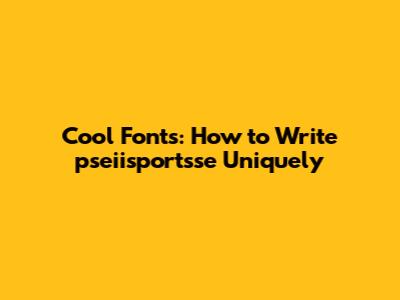
- Contrast is Key: Pair a serif font with a sans-serif font to create visual interest.
- Hierarchy Matters: Use a bolder font for headlines and a simpler font for body text.
- Limit the Number of Fonts: Stick to two or three fonts max to keep things clean and cohesive.
- Serif: In Times New Roman, "pseiisportsse" looks classic and professional.
- Sans-Serif: In Helvetica, "pseiisportsse" looks modern and clean.
- Script: In Brush Script MT, "pseiisportsse" has a playful, handwritten vibe.
- Display: In a bold, futuristic font like Bebas Neue, "pseiisportsse" looks attention-grabbing and dynamic.
Hey guys! Ever wondered how to make your text stand out? Let's dive into how you can write "pseiisportsse" using different fonts and styles to give it that extra zing. Whether you're designing a logo, creating social media content, or just want to add some flair to your messages, understanding font variations can make a huge difference. So, buckle up and get ready to explore the awesome world of fonts!
Why Bother with Different Fonts?
Fonts are more than just how letters look; they convey emotion, personality, and tone. Using different fonts can drastically change how your message is perceived. Think about it: a playful, rounded font might be perfect for a children's book, while a sharp, elegant serif font could be ideal for a high-end brand. When you're aiming for something specific, like making "pseiisportsse" look professional or fun, the right font is your best friend. For instance, if "pseiisportsse" is part of a gaming team's name, you might want a bold, futuristic font to reflect that energy. Or, if it's for a classy esports event, a sleek, modern sans-serif font might be the way to go. Understanding the impact of fonts allows you to strategically choose the one that best represents your message and captures the attention of your audience. Different fonts also cater to different cultural aesthetics and preferences. A font that resonates well with a Western audience may not have the same impact in an Eastern culture, and vice versa. By considering these nuances, you can ensure that your message is not only visually appealing but also culturally relevant and inclusive. Ultimately, experimenting with various fonts enables you to create a unique and memorable brand identity. Consistency in font usage across all platforms reinforces brand recognition and helps to establish a cohesive image. So, investing time in selecting the perfect fonts is an investment in your brand's success and longevity.
Exploring Font Categories
To really nail the "pseiisportsse" transformation, let's look at some key font categories. Each category has its own vibe and use cases.
Serif Fonts
Serif fonts are those classic fonts with little feet or strokes at the end of each letter. Think Times New Roman or Georgia. They often convey a sense of tradition, authority, and professionalism. For "pseiisportsse," a serif font might work well if you want to give it a formal, established feel. These fonts are generally considered more readable in print due to their distinctive serifs that guide the eye along the text, making them ideal for books, newspapers, and magazines. However, when it comes to digital media, serif fonts can sometimes appear cluttered on screens with lower resolutions, so careful consideration is necessary when using them online. Different types of serif fonts, such as Old Style, Transitional, and Modern, each have their unique characteristics. Old Style serifs, like Garamond, have a more organic and handwritten feel, while Transitional serifs, like Baskerville, offer a balance between traditional and modern aesthetics. Modern serifs, like Didot, are characterized by their high contrast between thick and thin strokes and their sharp, vertical stress. Understanding these variations allows you to choose a serif font that aligns perfectly with the intended tone and style of your message. In addition to their aesthetic qualities, serif fonts can also influence the perceived credibility and trustworthiness of your content. Studies have shown that serif fonts are often associated with reliability and expertise, making them a popular choice for academic papers, legal documents, and corporate reports. By leveraging the inherent qualities of serif fonts, you can enhance the overall impact and effectiveness of your communication.
Sans-Serif Fonts
Sans-serif fonts, like Arial or Helvetica, are clean and modern. They lack the serifs, giving them a more contemporary look. These fonts are great for conveying simplicity, clarity, and a forward-thinking attitude. If you want "pseiisportsse" to look sleek and modern, a sans-serif font is the way to go. They are particularly effective for digital displays, as their clean lines and lack of embellishments make them highly legible on screens of all sizes and resolutions. Sans-serif fonts come in a wide variety of styles, each with its own unique personality. Geometric sans-serifs, like Futura, are characterized by their precise, geometric shapes and minimalist design. Humanist sans-serifs, like Gill Sans, have a more organic and approachable feel, with subtle variations in stroke weight and letterform. Grotesque sans-serifs, like Helvetica, are known for their neutral and versatile appearance, making them suitable for a wide range of applications. When choosing a sans-serif font, it's important to consider the overall context and intended message. A bold and impactful sans-serif can be used to grab attention and make a statement, while a lighter and more refined sans-serif can convey a sense of elegance and sophistication. In addition to their aesthetic appeal, sans-serif fonts also offer practical benefits in terms of readability and accessibility. Their clean and simple design makes them easier to read for people with visual impairments or learning disabilities, ensuring that your message is inclusive and accessible to a wider audience. By carefully selecting a sans-serif font that aligns with your brand identity and communication goals, you can create a consistent and impactful visual experience.
Script Fonts
Script fonts mimic handwriting. Think of cursive or calligraphy styles. These fonts can add a touch of elegance, creativity, or personalization. If "pseiisportsse" needs a fancy or artistic vibe, a script font could be perfect. However, be careful – script fonts can sometimes be harder to read, so use them sparingly and for shorter words or phrases. The key to using script fonts effectively is to ensure that they complement the overall design and enhance the message, rather than detract from it. When selecting a script font, consider the level of formality and the intended audience. A formal script font, like Edwardian Script, is suitable for wedding invitations and elegant branding, while a more casual script font, like Brush Script, is better suited for informal designs and creative projects. It's also important to pay attention to the spacing and kerning of script fonts, as tight spacing can make them difficult to read. Adjusting the letter spacing can improve legibility and create a more balanced and harmonious appearance. Script fonts can also be combined with other font styles to create a more dynamic and visually appealing design. Pairing a script font with a simple sans-serif font can create a striking contrast and add visual interest to your message. By experimenting with different combinations and styles, you can create a unique and memorable design that effectively communicates your brand's personality and values.
Display Fonts
Display fonts are the wildcards of the font world. They're designed to be eye-catching and unique, often used for headlines, logos, or anything that needs to grab attention. These fonts come in all shapes and sizes, from bold and blocky to whimsical and quirky. If "pseiisportsse" needs to make a statement, a display font can do the trick. The main goal of display fonts is to capture attention and make a memorable impression. Therefore, they often feature unconventional shapes, intricate details, and bold typography. When selecting a display font, it's important to consider the overall tone and message of your design. A playful and cartoonish display font can be used to create a fun and lighthearted mood, while a more geometric and abstract display font can convey a sense of modernity and innovation. Display fonts are typically used for headings, titles, and logos, where their unique characteristics can shine. They are less suitable for body text, as their intricate designs can make them difficult to read in large quantities. When using display fonts, it's important to ensure that they are legible and that they complement the overall design. Avoid using too many different display fonts in the same design, as this can create a cluttered and overwhelming effect. Instead, focus on selecting one or two display fonts that effectively communicate your message and enhance the visual appeal of your design. By carefully choosing and using display fonts, you can create a design that stands out and leaves a lasting impression on your audience.